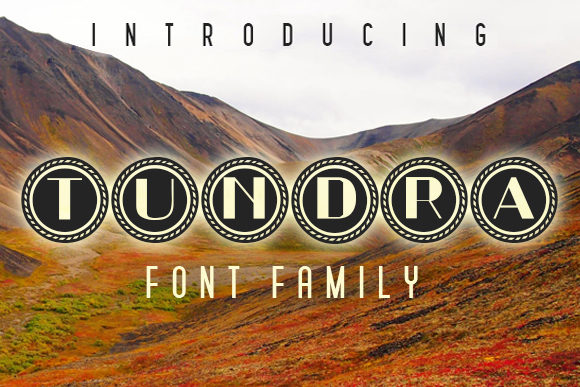
Prepare to be mesmerized by Tundra Font, the most captivating font in our collection. The brainchild of the visionary vladimirnikolic, Tundra is not just a font - it's a gateway to limitless creativity.
Crafted with the utmost care and precision, Tundra exudes an air of sophistication that will elevate every design it touches. With its striking decorative style, it's the perfect choice for creating eye-catching logos, unforgettable branding, and captivating social media posts.
But Tundra is more than just visually stunning. It's a font that speaks to the heart, evoking a sense of adventure, freedom, and boundless possibilities. Its bold strokes and intricate details give it a captivating personality that will make your designs stand out from the crowd.
Unleash your inner artist with Tundra and let your imagination soar. Whether you're designing a tattoo that will tell your life story or creating a brand identity that will leave a lasting impression, Tundra is the font that will bring your vision to life.
With Tundra Font at your fingertips, you'll have the power to:
* Create stunning tattoos that will become cherished keepsakes, capturing the essence of your story and leaving an everlasting mark.
* Craft logos that will make your brand unforgettable, attracting customers and building a loyal following.
* Design social media posts that will captivate your audience, driving engagement and expanding your reach.
* Express yourself in a way that's truly unique, using a font that reflects your personality and sets you apart from the ordinary.
Join the design revolution with Tundra Font and unlock a world of creative possibilities. Let your imagination run wild and create designs that will leave a lasting impression.